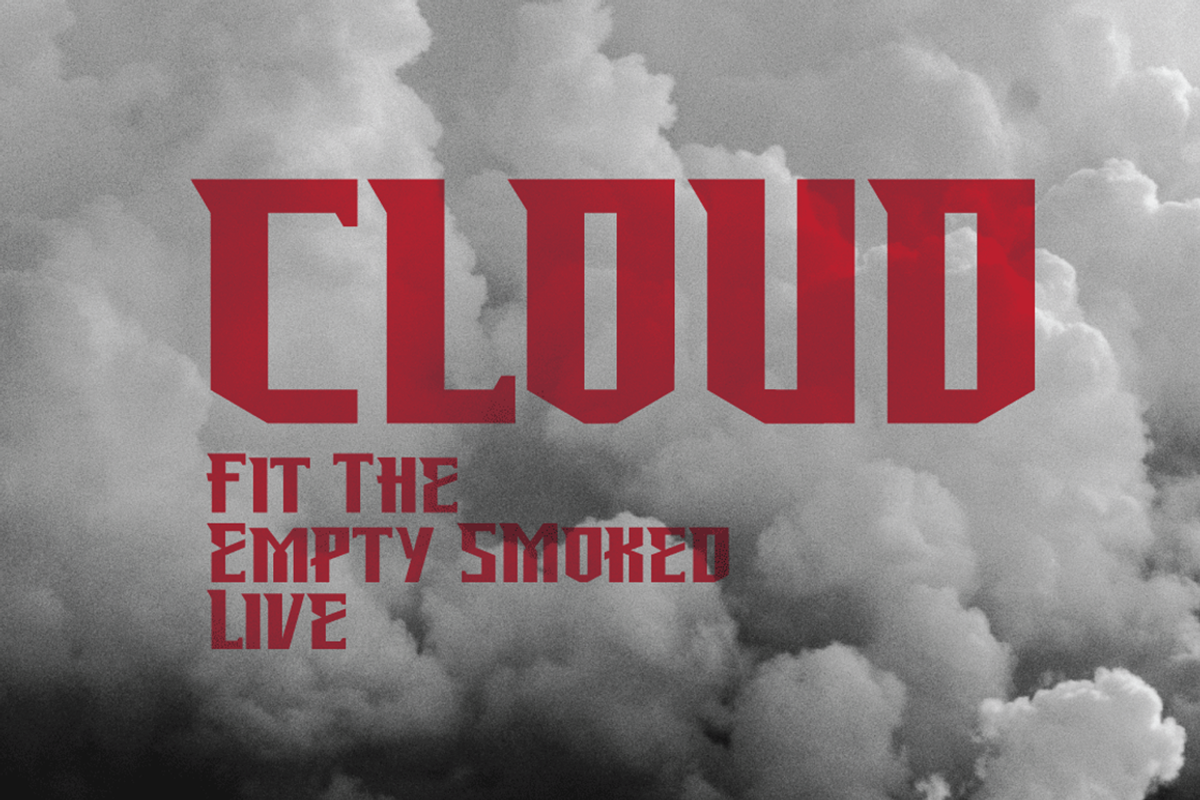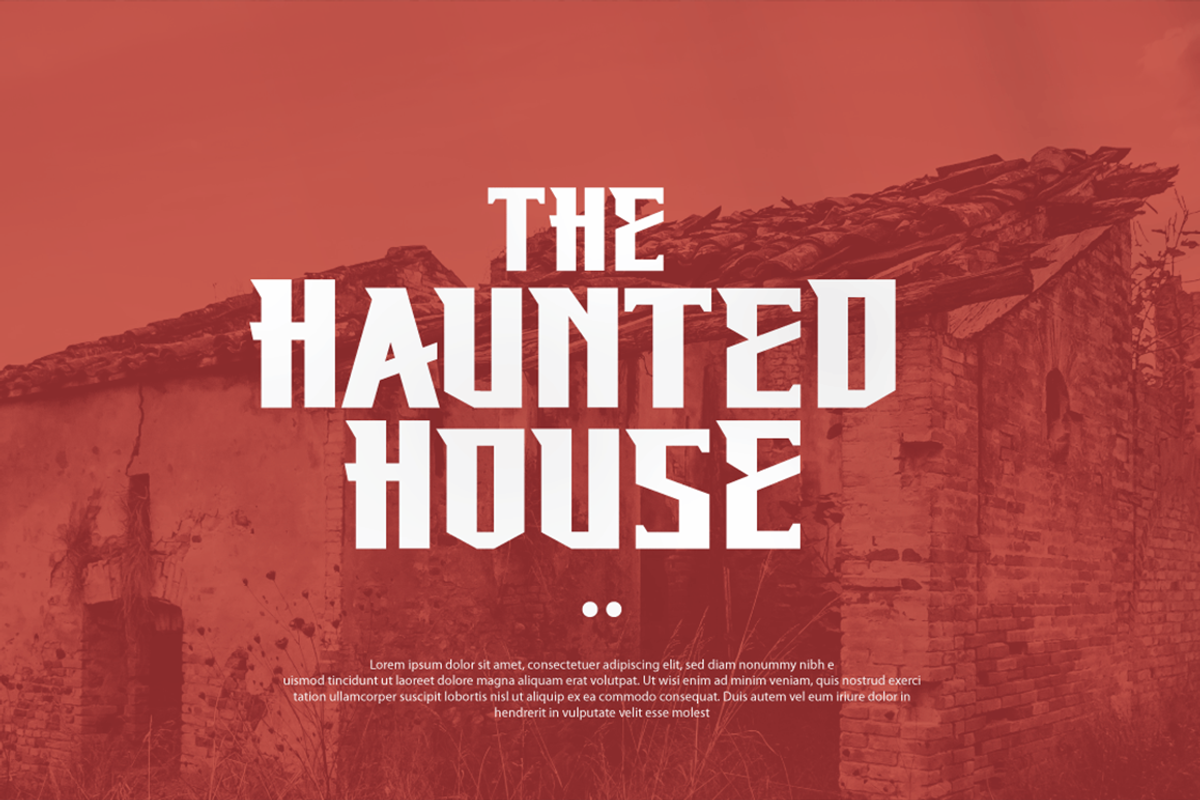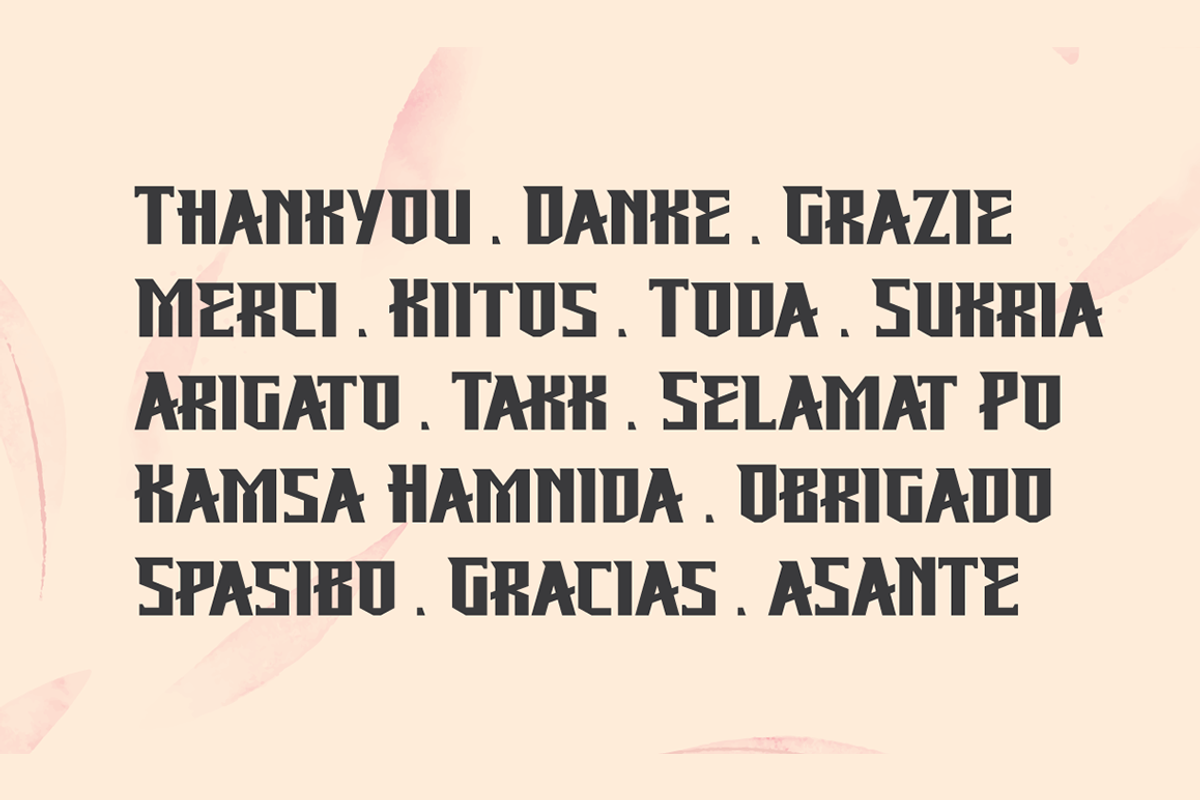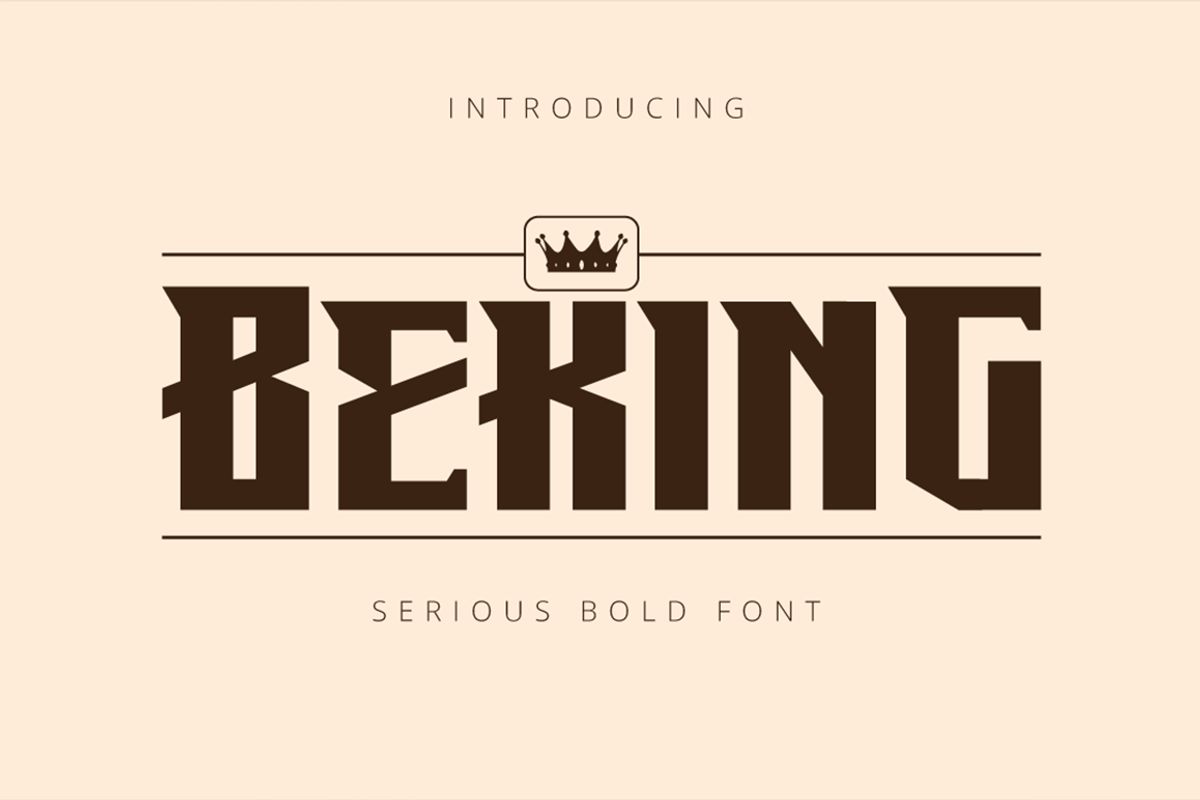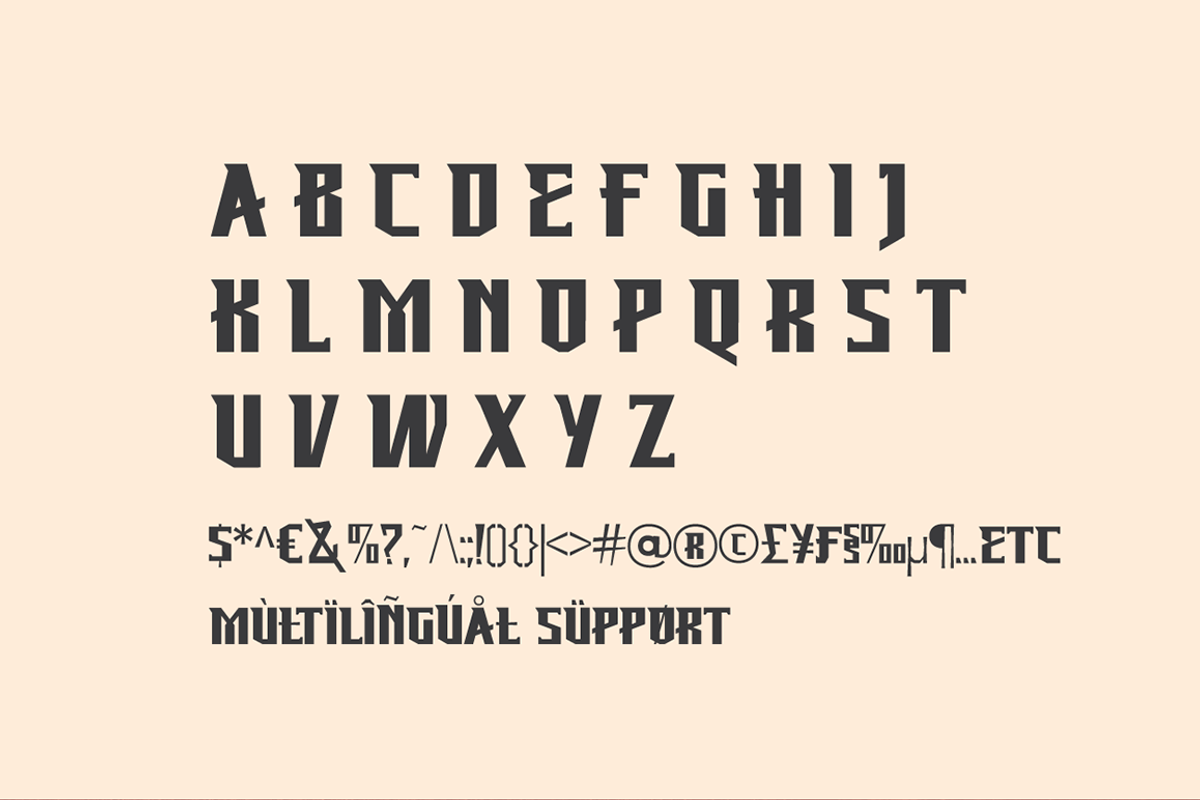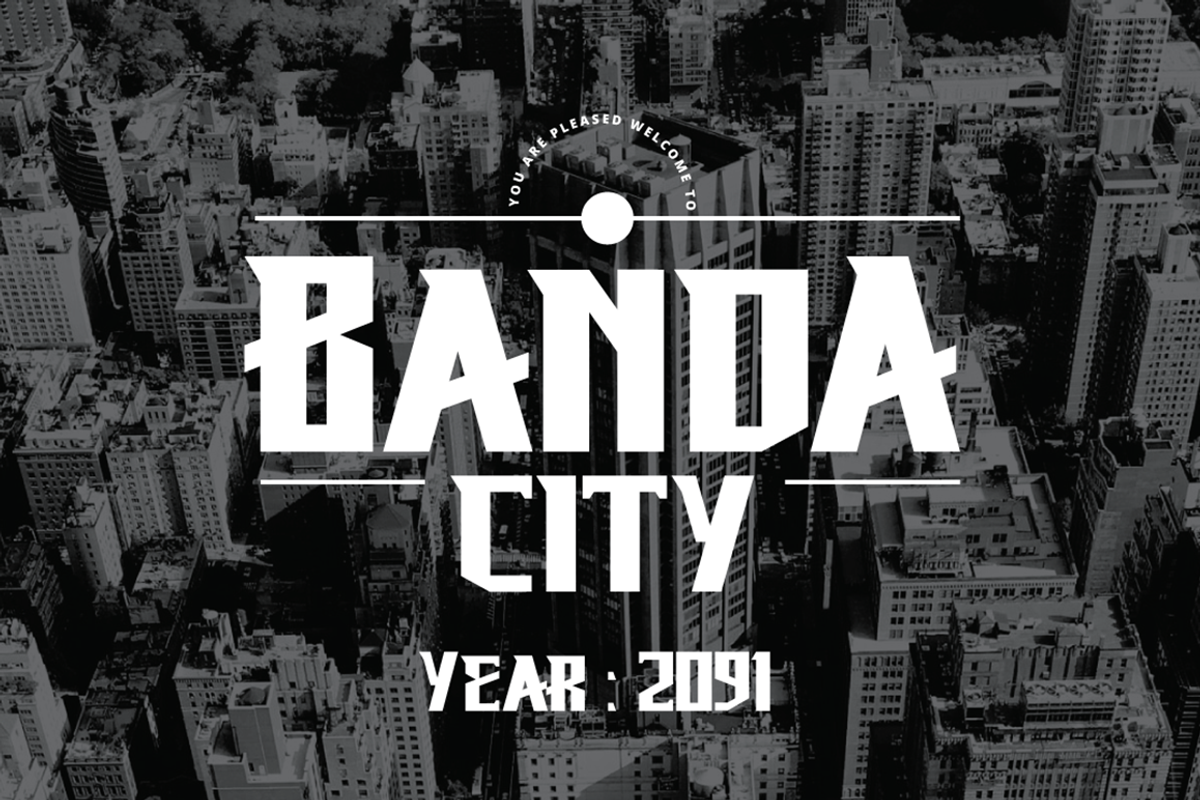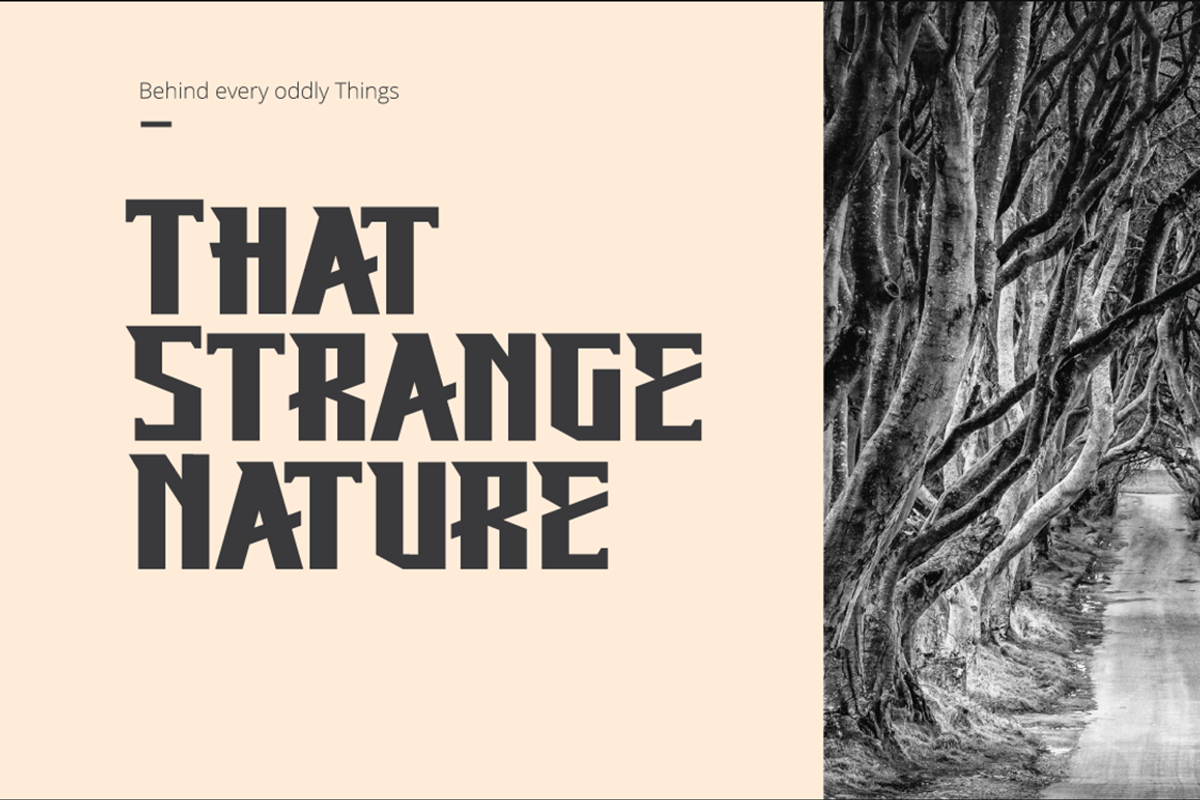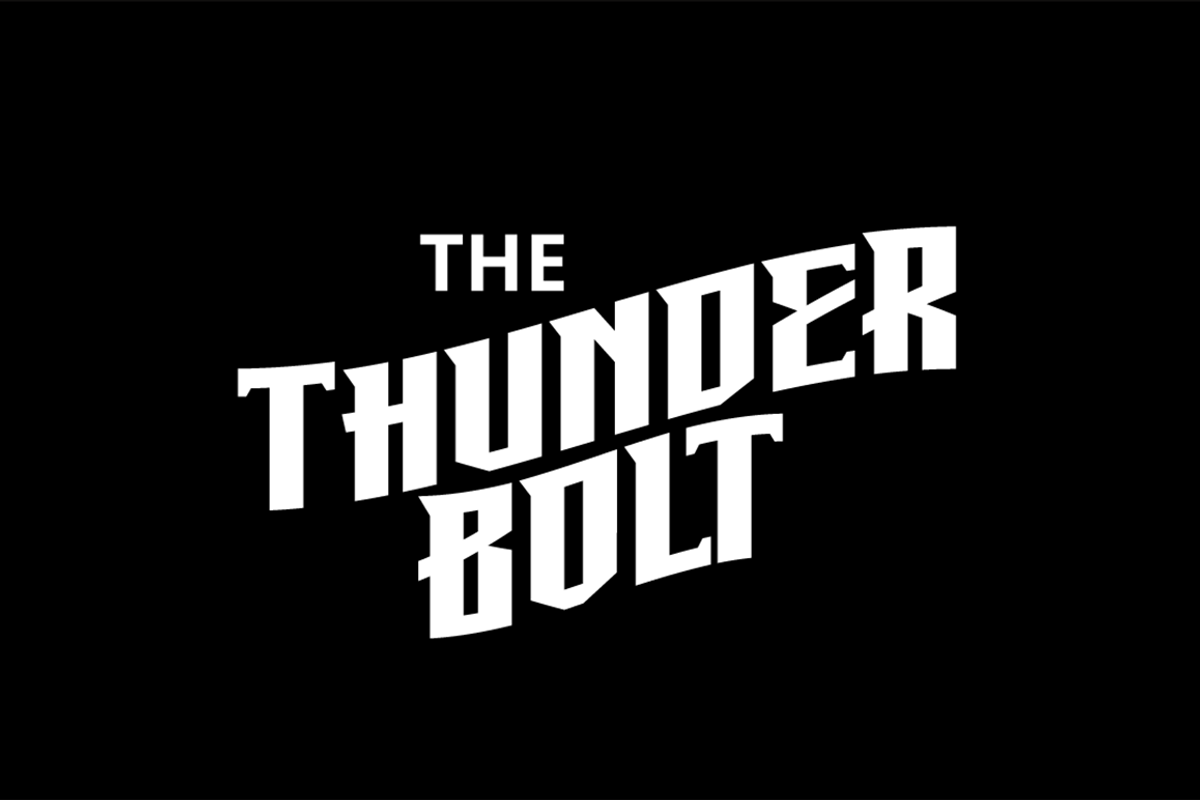
Beking Font
Beking is a brand new bold font, it looks tough and sharp edges. the font is fun and created with unique style through lines. Beking is a perfect for any project from posters or flyer designs, logo tagline to t-shirts and packaging, Bold Condensed look will give your designs outstanding look and make your creative work look great.